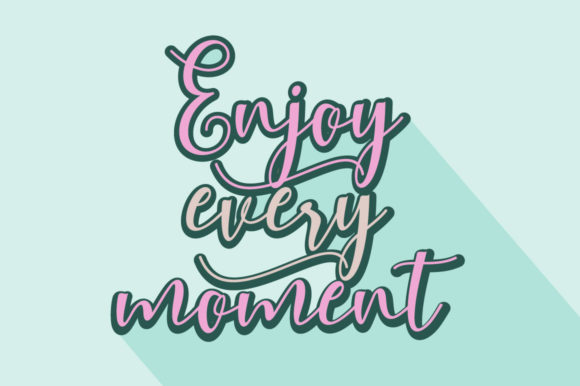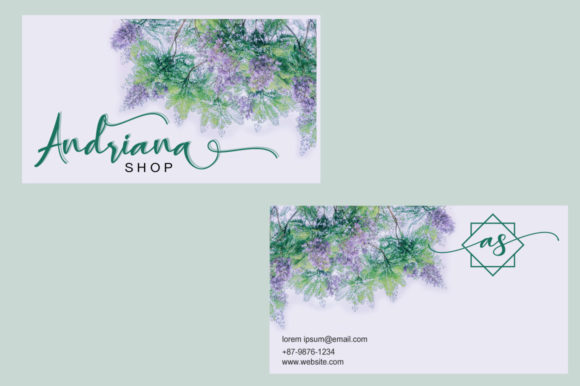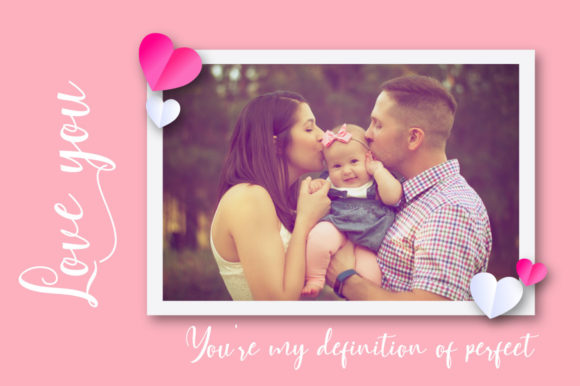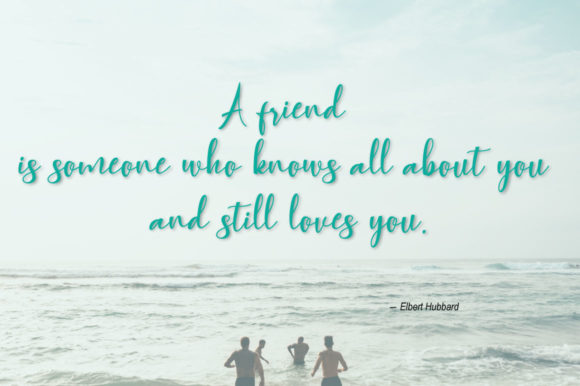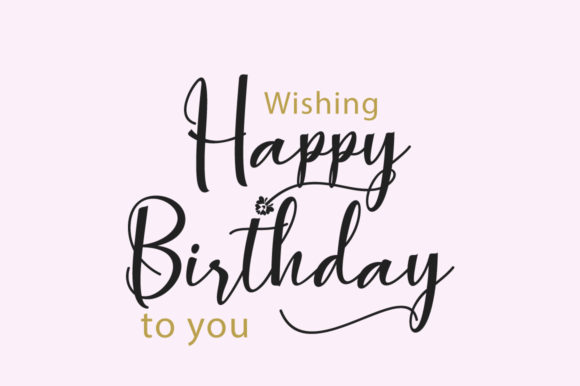
The Sweet Agnesia Font: A Designer’s New Best Friend
I still remember the design project that led me to fall in love with the Agnesia font. I was working on a wedding invitation for a client who wanted something elegant yet playful. As I scrolled through my font library, I stumbled upon Agnesia, and it was like a breath of fresh air. The soft, hand-lettered script with its rounded characters instantly captured my heart. I knew right then and there that Agnesia was going to be the perfect fit for my project.
- 💕 The playful, rounded characters make it perfect for crafting stunning projects, from wedding invitations to cute greeting cards.
- 🎉 Agnesia comes packed with PUA encoded swashes, allowing you to add a decorative touch within seconds.
- 👍 The font has an authentic feel that will make your designs stand out.
- 💻 It’s incredibly versatile and works well for both digital and print projects.
A Few Quirks to Keep in Mind 🤔
- ⚠️ While Agnesia is a beautiful font, it might not be the best choice for very formal or traditional designs.
- 🤔 Some users might find that the font’s softness can make it difficult to read at smaller sizes.
The Story Behind Agnesia: A Designer’s Inspiration
Agnesia was created with the intention of capturing the sweetness and softness of handwritten scripts. The designer aimed to create a font that felt both elegant and approachable, perfect for a variety of creative projects. Inspired by traditional hand-lettering, Agnesia brings a touch of authenticity to any design.
| Font Name | Agnesia Font |
| What makes Agnesia unique? | Agnesia’s unique features include its soft, hand-lettered script and PUA encoded swashes, which allow for easy customization and decoration. |
| Is Agnesia suitable for body text? | While Agnesia is beautiful, its softness might make it less ideal for long body text. It’s best used for headings or short paragraphs. |
| Can I use Agnesia on social media? | Absolutely! Agnesia’s playful and elegant feel makes it perfect for eye-catching social media posts. |
Agnesia is more than just a font; it’s a design companion that can elevate your projects with its sweet, soft charm. Whether you’re creating wedding invitations, crafting stationary art, or designing social media posts, Agnesia is sure to bring a touch of elegance and playfulness. So go ahead, fall in love with Agnesia, and let it transform your designs!